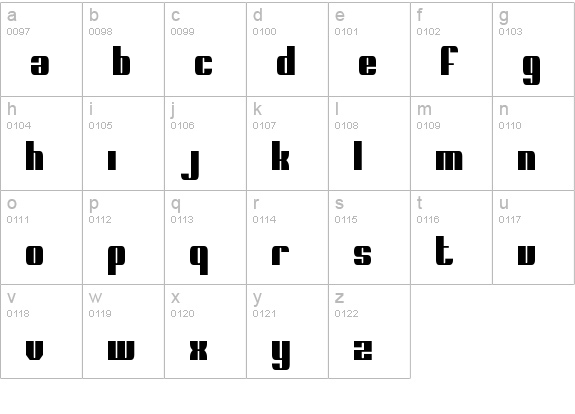
Nolo Contendre Condensed is a distinctive, condensed-width variant in the Nolo typeface family \xE2\x80\x94 well suited to design and typography projects.
Nolo Contendre Condensed font is a stylish and modern typeface that exudes sophistication and elegance. Its sleek lines and minimalistic design make it perfect for a wide range of design projects, from branding to editorial layouts. The condensed style adds a touch of refinement and makes it ideal for creating a sleek and polished appearance. This versatile font is freely available to download at FontsMarket.com, making it accessible to all designers and creatives looking to elevate their work with a touch of class. Whether you're working on a website, packaging, or print materials, Nolo Contendre Condensed font is sure to make a statement and leave a lasting impression. With its clean and contemporary look, Nolo Contendre Condensed font is a must-have for anyone seeking a modern and sophisticated typeface that will set their designs apart. Download it today and see how it can take your projects to the next level.